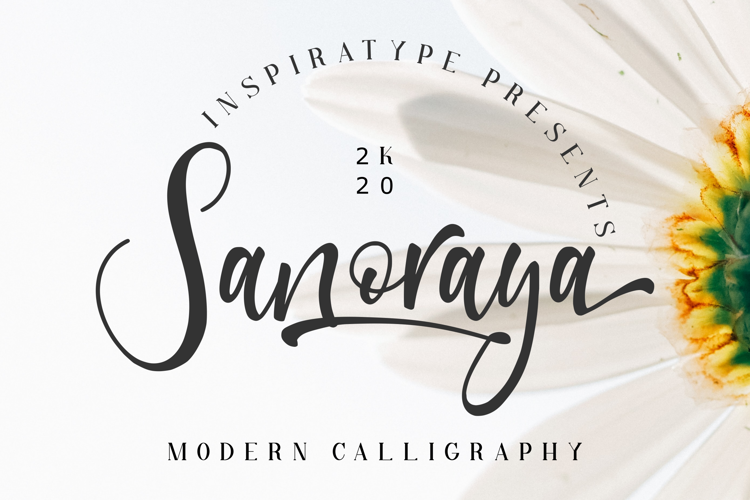
Sanoraya Font
"Sanoraya" is a font display is made by hand, inspired by classic posters.
comes with uppercase, lowercase, numerals, punctuations and so many variations on each character include OpenType alternates, common ligatures and also additional swash to let you customize your designs. Perfect to use for Logotype, Letterhead, Poster, Apparel Design, Label and etc.